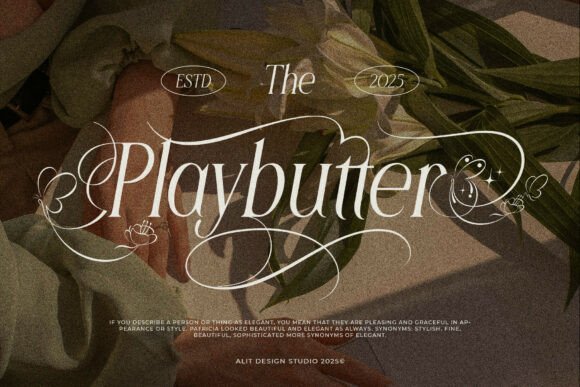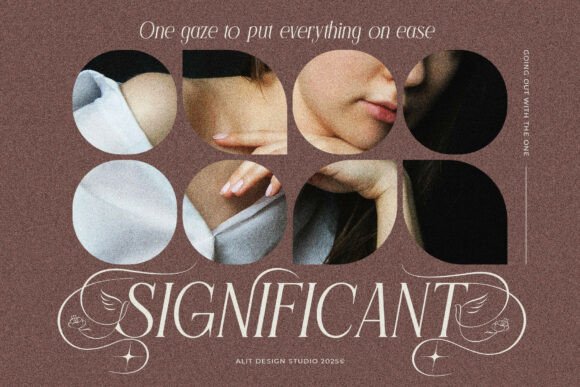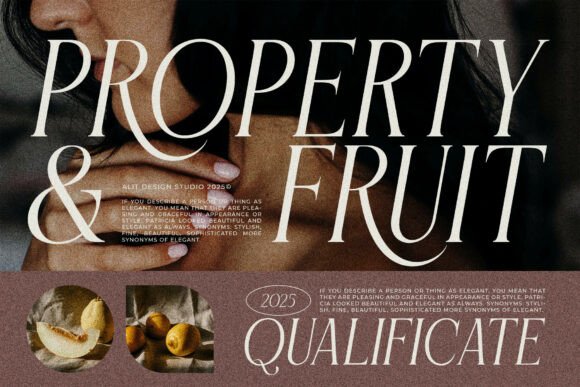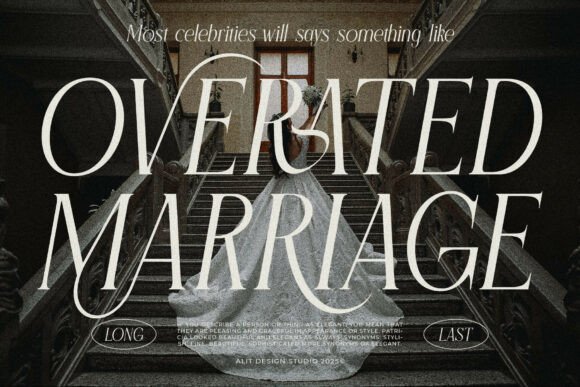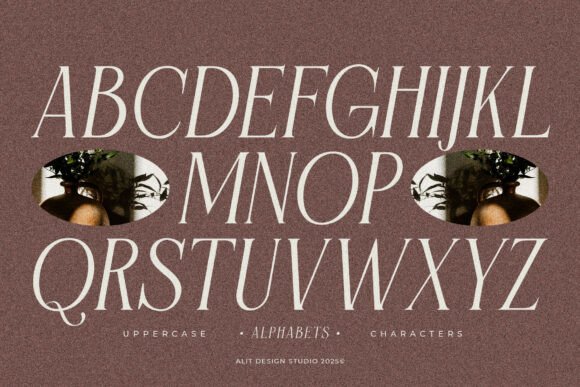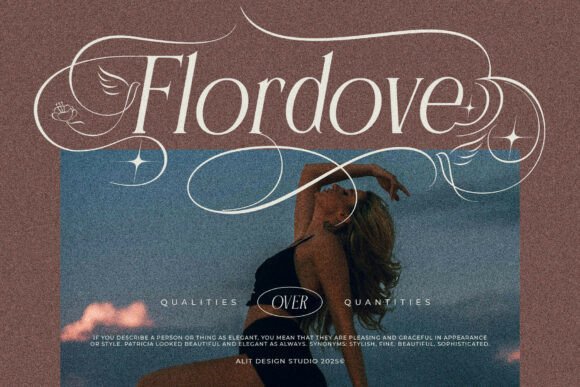
Discover the Enchanting World of Flyhayer Font
Are you ready to elevate your design game with a font that exudes romance, elegance, and sophistication? Look no further than Flyhayer, a breathtaking serif font that will transport your creations to a world of beauty and charm. This exquisite typeface is meticulously handcrafted to infuse your designs with a touch of magic, making it perfect for designers and crafters seeking to add a dash of bespoke artistry to their work.
The Inspiration Behind Flyhayer
Flyhayer is inspired by the ethereal dance of nature and the timeless allure of classic elegance. The font’s creator has woven a tapestry of romance and beauty, drawing inspiration from the delicate flight of a peace bird, the whimsical flutter of butterflies, the soft bloom of flowers, and the magical twinkle of sparkling accents. Each character is thoughtfully designed, offering a unique blend of sophisticated serifs and flowing, decorative elements that will make your text come alive.
A Font that Transcends Ordinary Typography
Flyhayer is more than just a collection of letters; it’s an artistic journey that will transform your designs into captivating masterpieces. The font features an array of stunning swashes that truly set it apart from other serif fonts. With Flyhayer, you can add a touch of luxury and sophistication to your wedding invitations, luxury branding, romantic editorial layouts, elegant packaging, and any project desiring a touch of bespoke artistry.
Key Features of Flyhayer Font
- Exquisite Detail: Each character is meticulously handcrafted to ensure that every detail is perfect, from the delicate serifs to the flowing swashes.
- Romantic Swashes: Flyhayer features an array of stunning swashes that will add a touch of elegance and sophistication to your designs.
- Sophisticated Serifs: The font’s serifs are designed to add a touch of luxury and refinement to your text, making it perfect for high-end designs.
- Flowing Decorative Elements: Flyhayer’s decorative elements are designed to flow seamlessly with the text, creating a beautiful and cohesive look.
Flyhayer is perfect for designers and crafters seeking to add a touch of bespoke artistry to their work. Whether you’re creating wedding invitations, luxury branding, romantic editorial layouts, elegant packaging, or any project desiring a touch of elegance, Flyhayer is the perfect choice. The font’s versatility and beauty make it an excellent addition to any designer’s toolkit.
Tips and Tricks for Getting the Most out of Flyhayer
- Experiment with Different Swashes: Flyhayer’s swashes are designed to be used in a variety of ways. Experiment with different combinations to find the perfect look for your design.
- Use Flyhayer with Other Fonts: Flyhayer can be paired with other fonts to create a unique and interesting look. Try pairing it with a sans-serif font for a striking contrast.
- Pay Attention to Kerning: Flyhayer’s kerning is carefully crafted to ensure that the text looks beautiful and cohesive. However, you may need to adjust the kerning to suit your specific design needs.
Flyhayer is a breathtaking serif font that will elevate your designs to new heights. With its exquisite detail, romantic swashes, sophisticated serifs, and flowing decorative elements, Flyhayer is the perfect choice for designers and crafters seeking to add a touch of bespoke artistry to their work. Whether you’re creating wedding invitations, luxury branding, romantic editorial layouts, elegant packaging, or any project desiring a touch of elegance, Flyhayer is the perfect font for you.